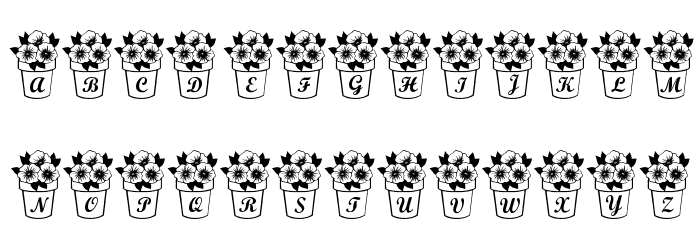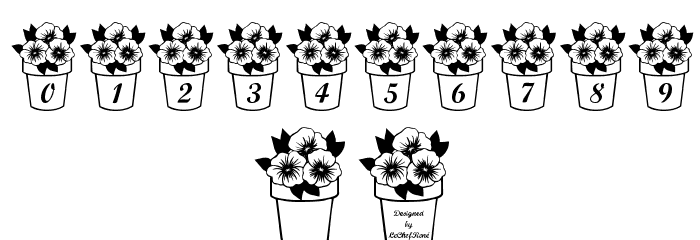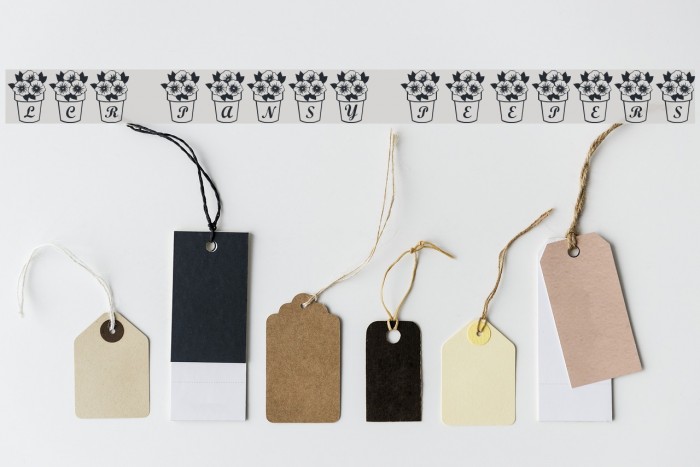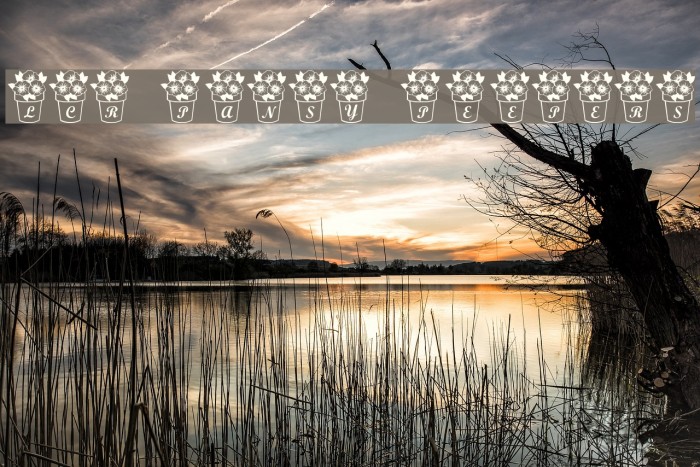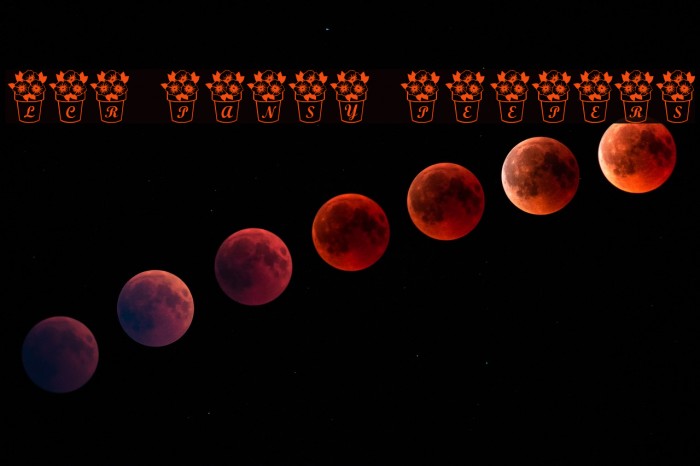
LCR Pansy Peepers Font
This decorative font features each character nestled within a charming flower pot adorned with pansies. The uppercase and lowercase letters, as well as numbers, are elegantly styled with a script-like flair, adding a whimsical touch to the design. The intricate floral details surrounding each character create a unique and playful aesthetic, making it ideal for projects that require a touch of nature and creativity. The font's design is consistent across all characters, ensuring a cohesive look when used in text. Its decorative nature makes it stand out, perfect for eye-catching headlines or artistic projects.
A decorative font with characters in flower pots, featuring a whimsical script style.
- Proposed Projects: Ideal for greeting cards, invitations, garden-themed projects, and playful branding.
- Use Case: Headlines, Artistic projects, Branding